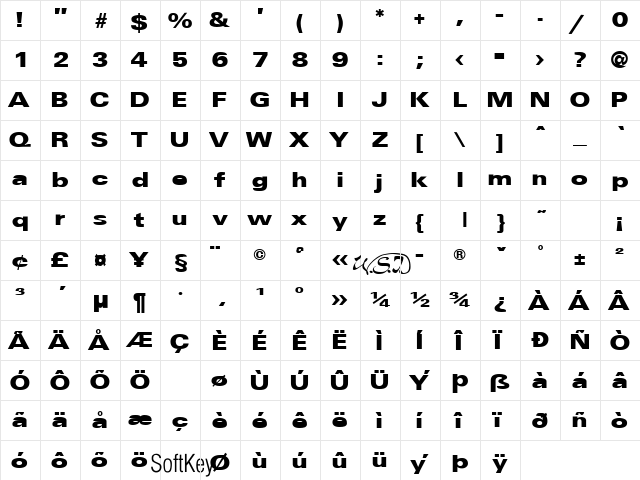
Universal Black Regular
Design Context for Universal Black Typeface
Universal Black is a composed and adaptable typeface that performs quietly and consistently across a wide range of design contexts.
Pro Tip: Pair Universal Black with a font of contrasting weight or personality to build a more expressive typographic hierarchy.